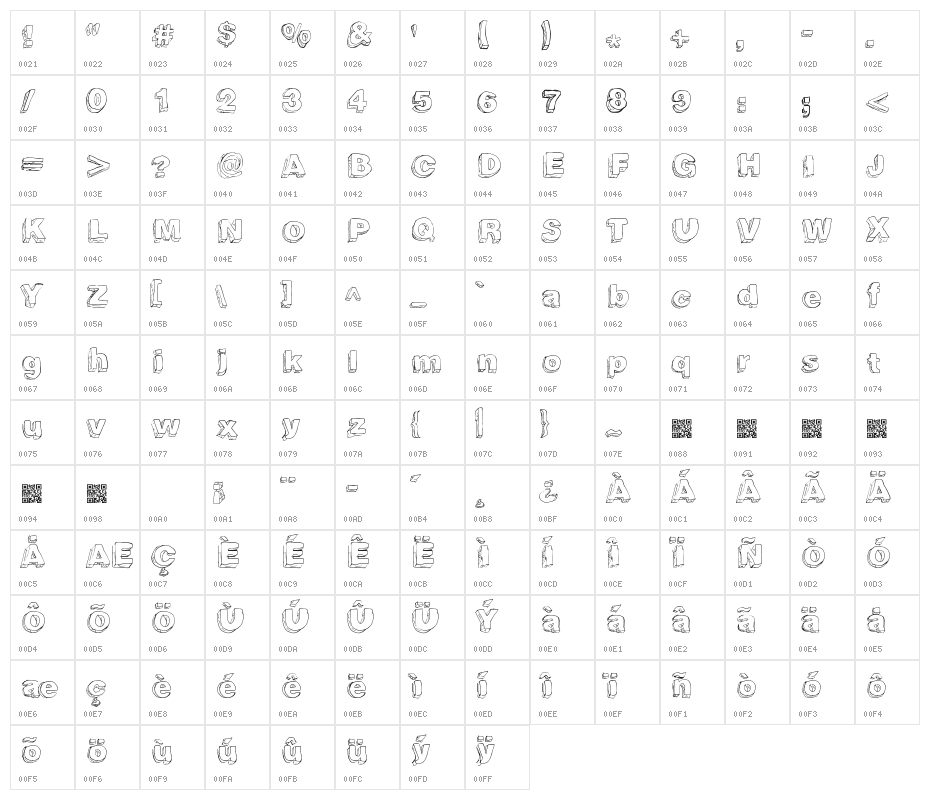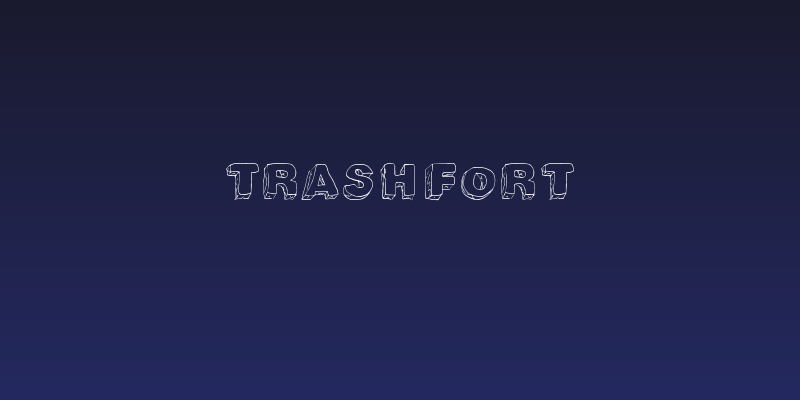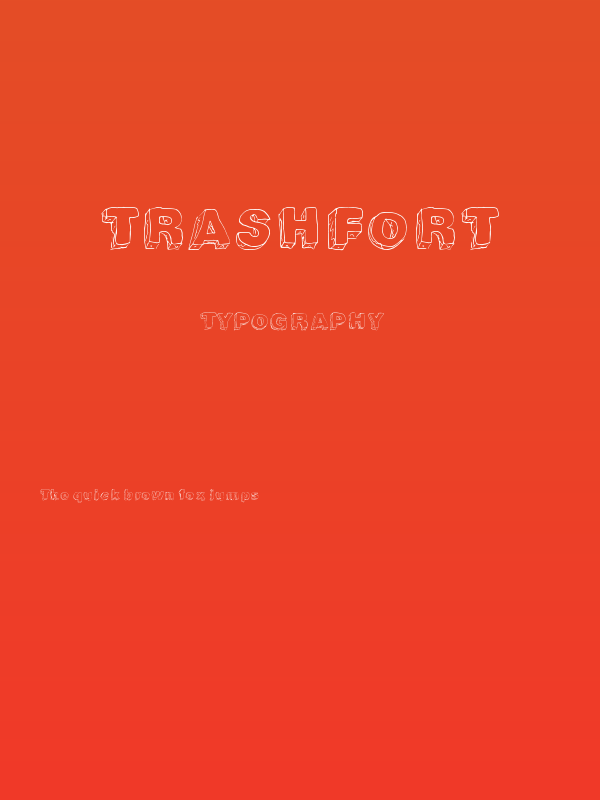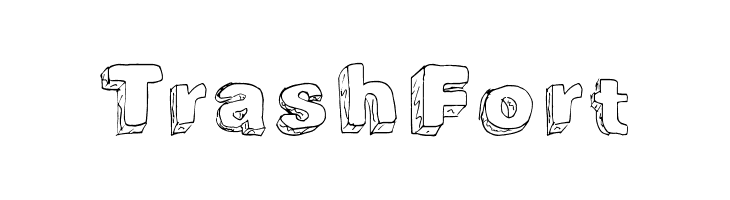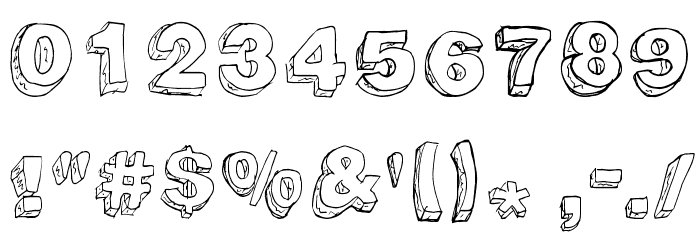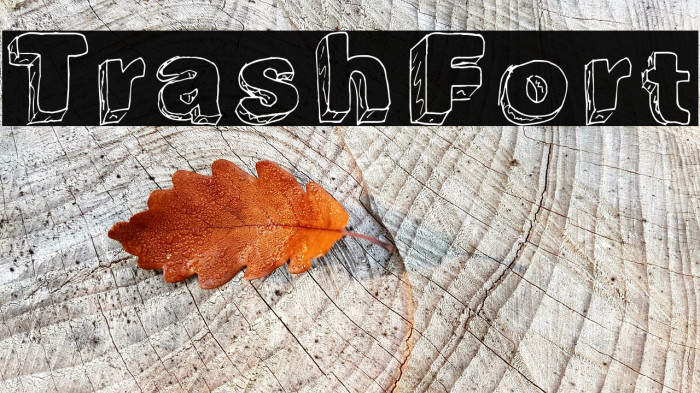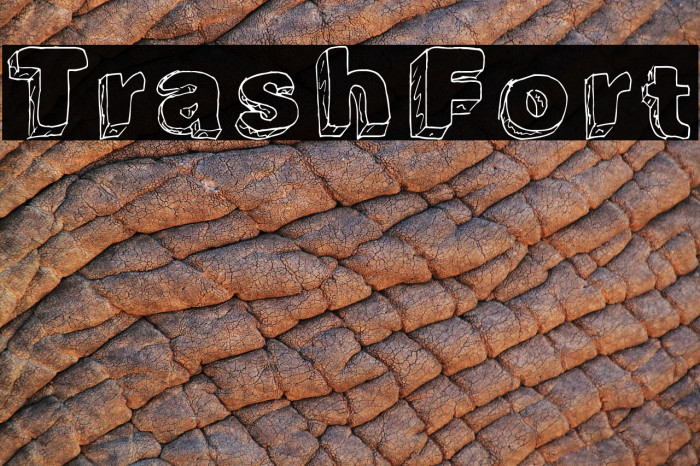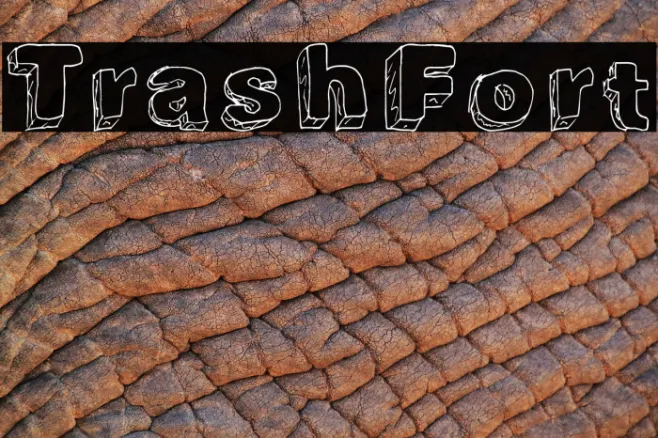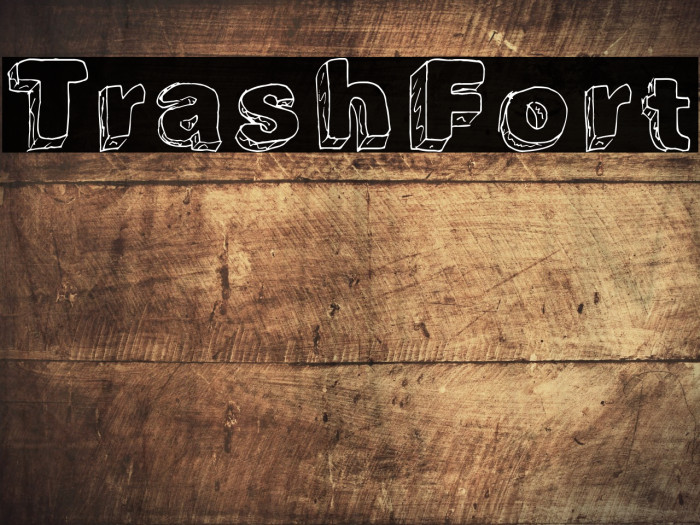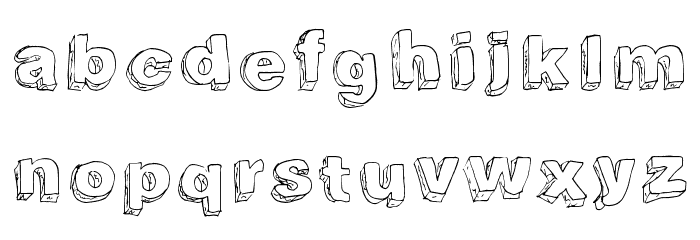
TrashFort Font
TrashFort Description
This font features a playful and sketch-like design, with each character appearing as if it has been hand-drawn with a rough, textured outline. The letters have a three-dimensional effect, giving them a unique, bold appearance. The irregular lines and shading add a sense of depth and creativity, making it stand out as a decorative choice. The font maintains a consistent style across uppercase, lowercase, numbers, and special characters, ensuring versatility in various design contexts. Its artistic and informal nature makes it suitable for projects that require a fun and engaging visual element.
| Proposed Projects | Ideal for children's book covers, comic strips, playful branding, and creative posters. |